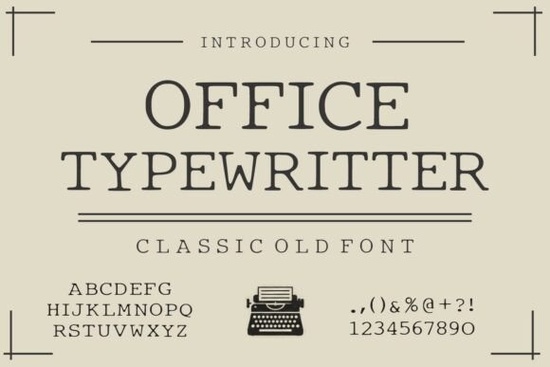
If you've ever wanted your designs to look like they came straight off a real vintage typewriter, the Office Typewriter Font is worth a close look. This serif typeface is built around the classic aesthetics of old office machines, historical documents, and handwritten correspondence. It brings a warm, nostalgic feel without sacrificing readability which is exactly what makes it useful for so many projects.
Whether you're working on book covers, invitations, vintage branding, or packaging, this font delivers the kind of authentic character that's hard to fake with modern typefaces.
What Makes This Font Look and Feel Like a Real Typewriter?
The letterforms in Office Typewriter are designed with elegant serif proportions that mimic the impression of metal keys hitting paper. You'll notice subtle irregularities and balanced spacing that give the text a handcrafted, organic quality just like actual typewritten pages.
This isn't a distressed or grungy font. It's clean and refined, which means it works well in professional settings like:
- Certificates and official documents that need a formal yet historic tone
- Editorial layouts for magazines, newspapers, and literary publications
- Vintage café menus, restaurant branding, and packaging design
- Stationery and invitation suites for weddings or special events
- Logo design for brands with a retro or heritage identity
The font maintains excellent readability at both headline and body text sizes, so you're not limited to large display use.
Who Is the Office Typewriter Font Best For?
This typeface works well for a wide range of creatives:
- Graphic designers working on editorial, branding, or packaging projects
- Print-on-demand sellers creating quotes, posters, or vintage-style merchandise
- Small business owners building a brand with a classic, trustworthy look
- Crafters and hobbyists making cards, scrapbook pages, or DIY invitations
- Authors and self-publishers designing book covers or interior layouts
If your project calls for something that feels timeless rather than trendy, this font fits the brief. It pairs nicely with other serif and script typefaces too for example, a bold serif with dramatic curves or an elegant serif with refined details can complement it beautifully in a layered design.
How Does It Compare to Other Serif and Typewriter Fonts?
There are plenty of typewriter-style fonts out there, but many lean too far into distressed or grunge territory. Office Typewriter sits in a sweet spot it has that nostalgic typewriter charm while staying polished enough for professional use.
Compared to purely decorative options, this font is genuinely versatile. You can set a full paragraph of body text and it remains easy to read. At the same time, it has enough personality to stand out in a headline or logo mark.
If you're building a font collection and want variety, consider pairing it with complementary typefaces. A delicate serif like this refined typeface with graceful letterforms works well for contrast, while a versatile serif family with multiple weights gives you flexibility across different design elements. For something with a bit more flair, a decorative serif with unique character can add visual interest alongside the grounded feel of Office Typewriter.
Where Can You Use a Typewriter Font Like This?
Here are some specific project ideas that suit this typeface:
- Book cover design especially for fiction, memoirs, historical novels, or poetry collections
- Social media graphics with a vintage or literary aesthetic
- Wedding invitations that lean into a classic, formal style
- Poster and flyer design for events, theater productions, or community gatherings
- Blog headers and website accents for content creators with a retro brand
- T-shirt and mug designs with quotes or typewriter-themed artwork for print-on-demand shops
- Scrapbooking and card making for crafters who love a handmade aesthetic
It also works in both print and digital applications, so you don't have to worry about losing quality when moving between formats.